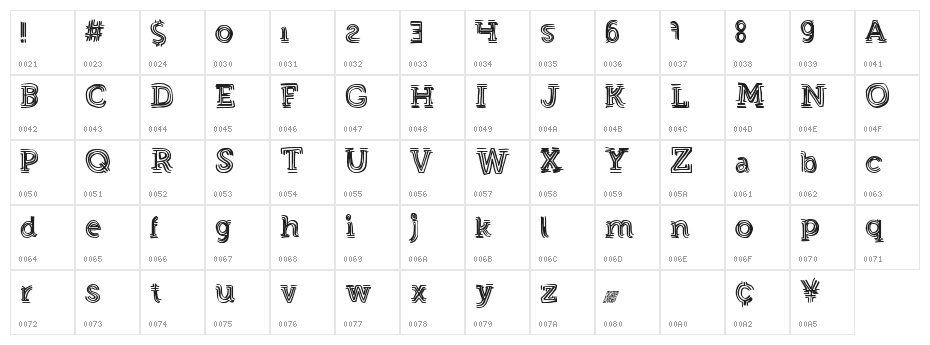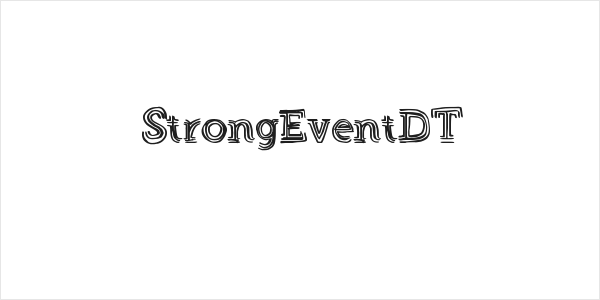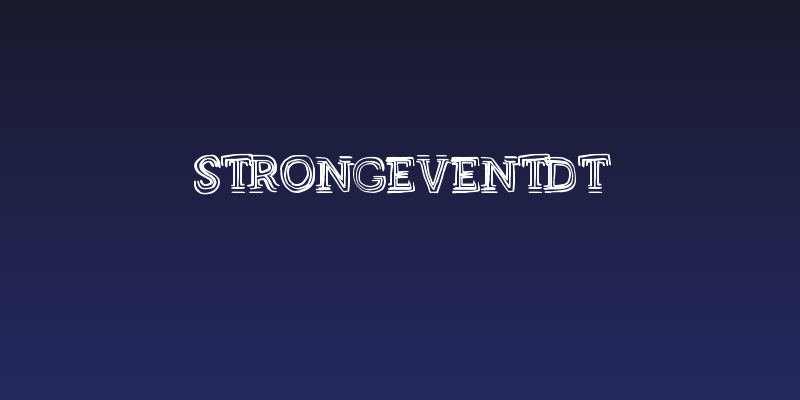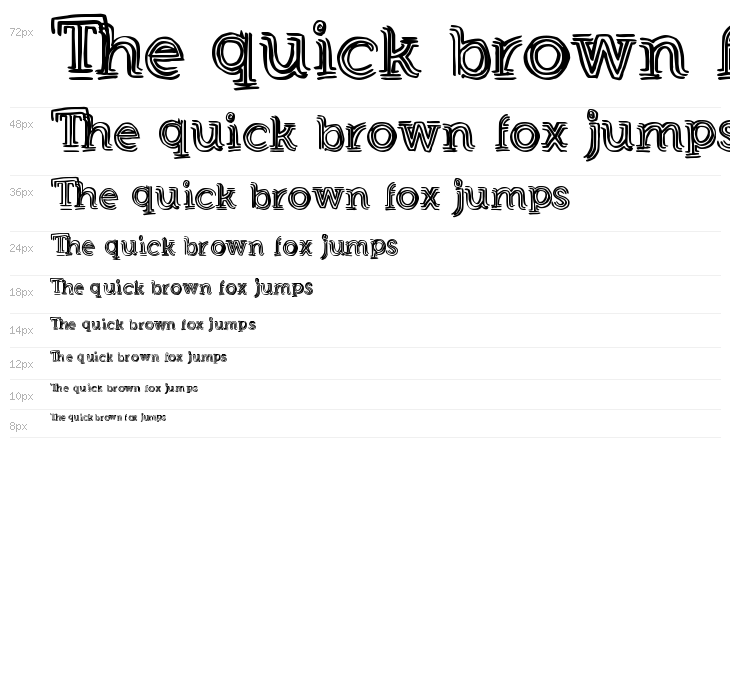
StrongEventDT Font
This font features a bold and decorative style with a unique layered effect that gives each character a sense of depth and dimension. The uppercase and lowercase letters are designed with a playful, almost whimsical flair, making them stand out with their intricate detailing. The numbers and special characters follow the same stylistic approach, ensuring consistency across the entire typeface. The font's design is reminiscent of vintage signage or carnival posters, with a modern twist that makes it suitable for contemporary projects. Its bold presence and artistic flair make it ideal for eye-catching headlines and creative designs.
| Proposed Projects | Ideal for posters, logos, branding, and any project requiring a standout, artistic typeface. |